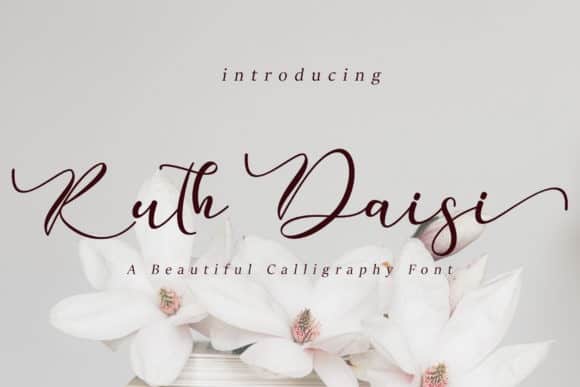
Ruth Daisi Font
Ruth Daisi Calligraphy Font is a luxury romantic calligraphy with lovely movements. This font also has lovely ligatures, alternative letters and swashes. Its distinct and well rounded letters make this font a masterpiece. Fall in love with its incredibly versatile style and use it to create spectacular designs!